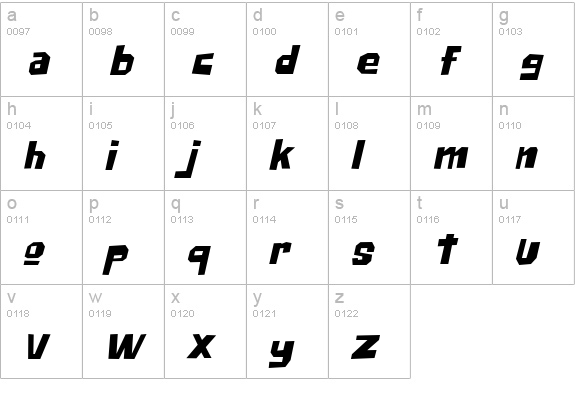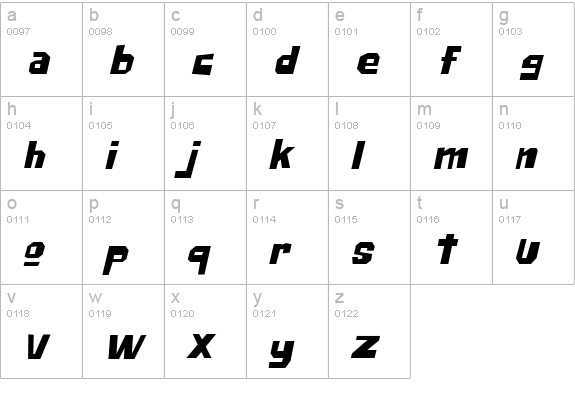
Big Chump BTN Oblique Font Details
Big Chump BTN Oblique is a distinctive, italic variant in the Big typeface family \xE2\x80\x94 well suited to design and typography projects.
Big Chump BTN Oblique font is a bold and eye-catching typeface that is perfect for making a statement. Its unique slanted design adds a touch of modernity and dynamism to any project. The font features thick, chunky letterforms that exude confidence and strength. Whether you're working on a poster, logo, or branding project, Big Chump BTN Oblique font will surely make your text stand out. The best part is that this font is available for free download at FontsMarket.com. Take advantage of this amazing opportunity to add a powerful and impactful font to your collection without spending a dime. Download Big Chump BTN Oblique today and unleash your creativity with this stunning typeface!